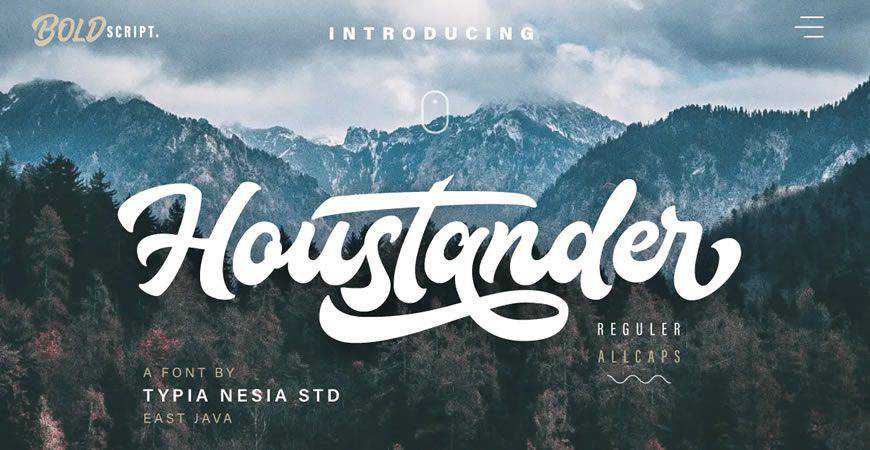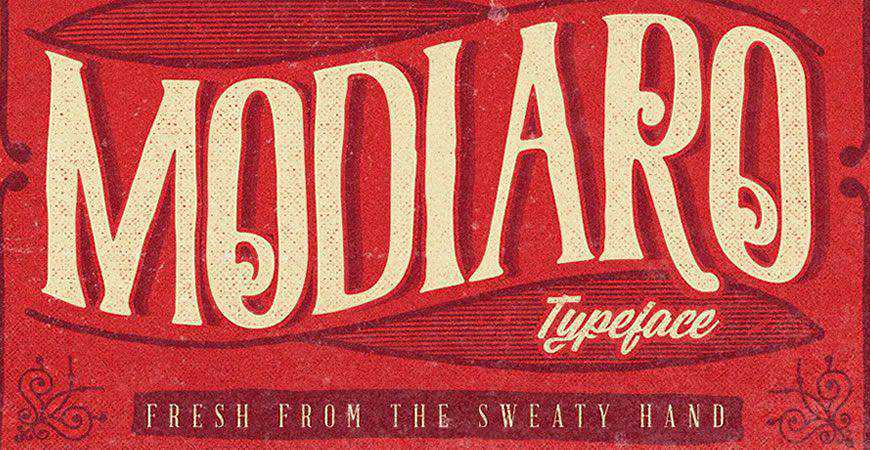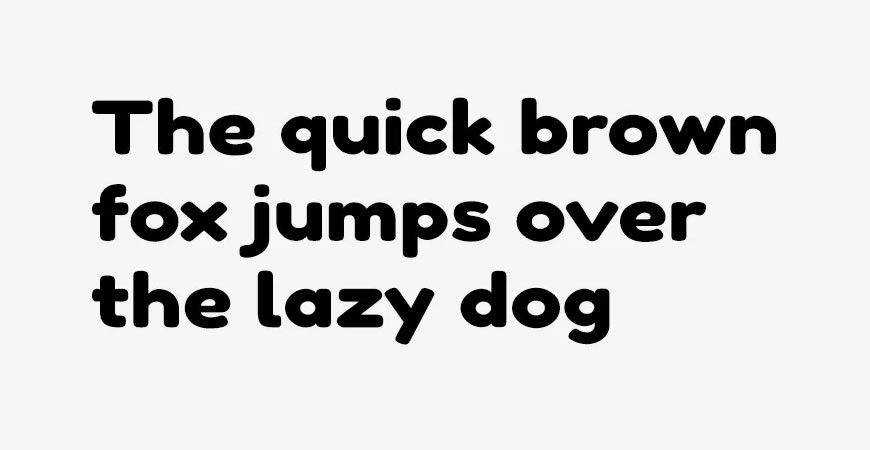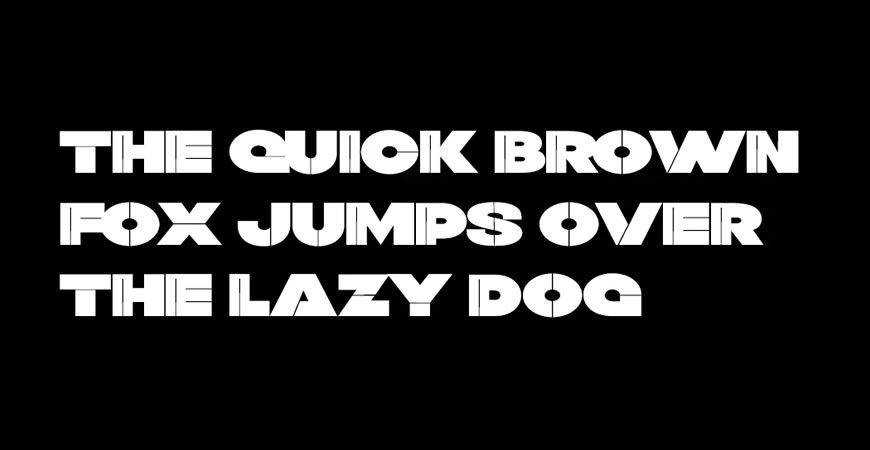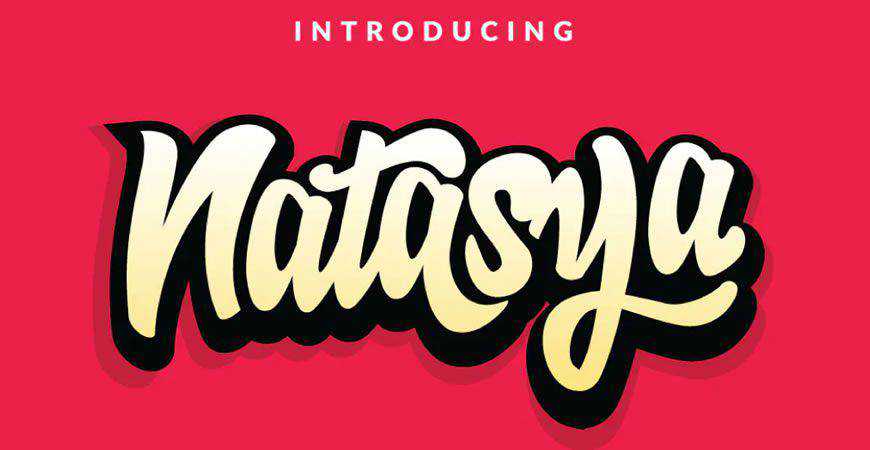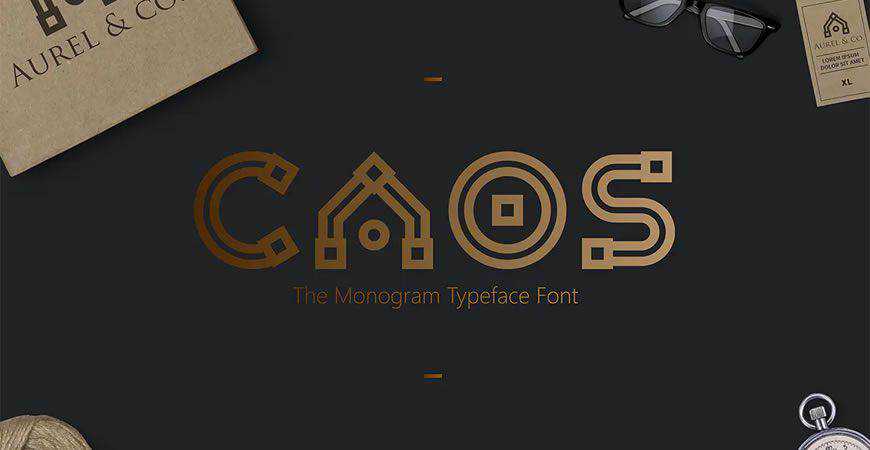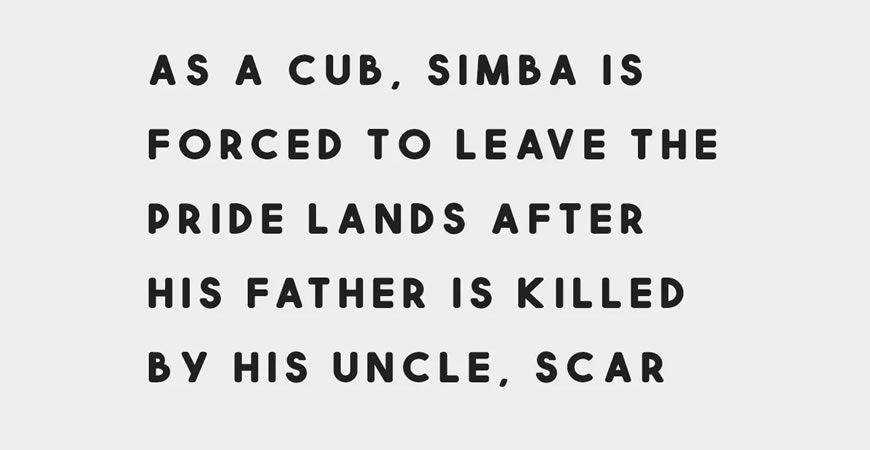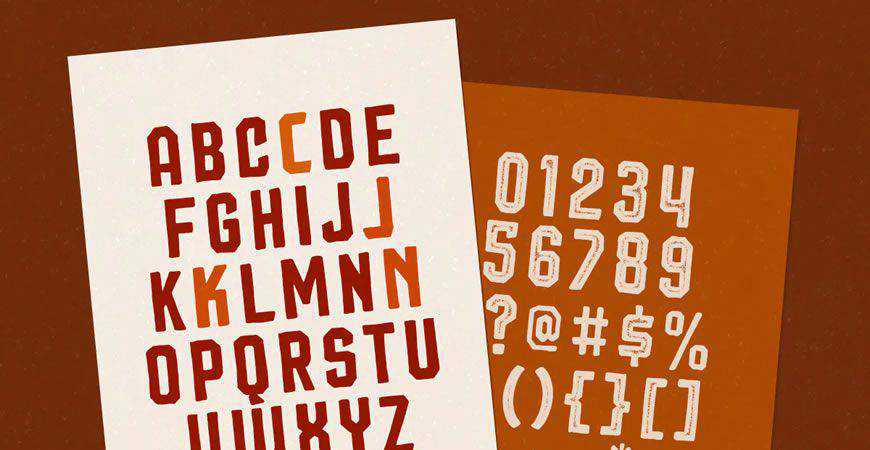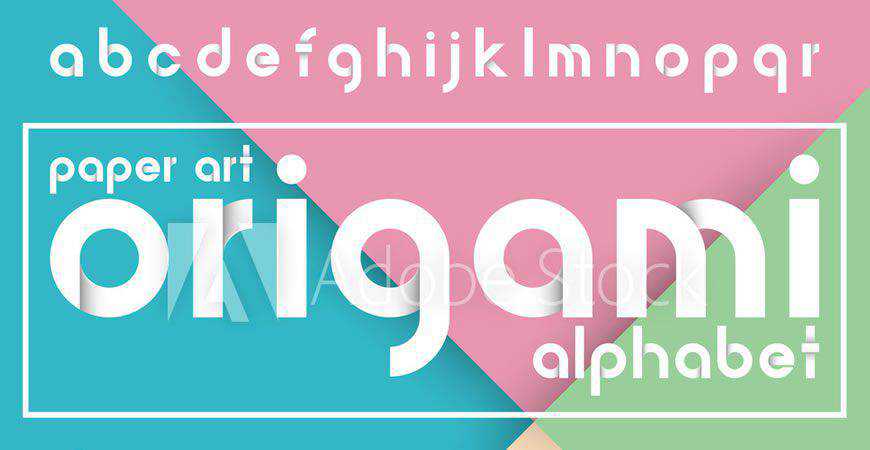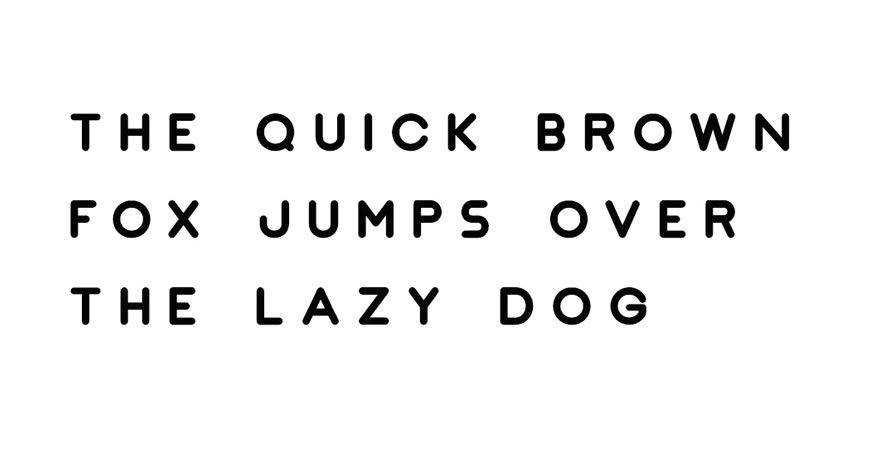
Every font tells a story. Once upon a time, serifs ruled the world. When we look at them today, we can’t shake the feelings of tradition and elegance. Then, we switched to sans-serifs, practical and highly readable. Fonts that amplify your message.
Today, we use all kinds of fonts. Serifs for elegant materials, sans-serifs for making sure our words resonate, and script fonts for that special aesthetic touch. And while the stakes are always high when it comes to fonts, they are never as high as when it comes to logo design.
If you want to create a stunning logo, you need a stunning font. So today, we’re bringing you a collection of fifty of the best fonts for creating stunning logos that will show your clients how well you understand their brands.
From tall and thin serifs that radiate elegance to flowery script fonts that stand out from the crowd, there’s plenty to pick from. Find the right font for your next project, make that logo stand out, or simply give your clients more options to choose from when creating their brand identity.
After all, if you find the right font, you won’t have to keep looking. And the font you choose will become a part of your clients’ brands as much as their products are. From logos to web display, let one of these stellar logo fonts become a go-to resource in your branding kit. Let’s dive in!
Houstander Font Duo
Good things come in pairs, and so does Houstander! Houstander is a beautiful handwritten script font with sans-serif foundations, and it works like a charm for elevating your logos and other marketing materials. It comes in 2 variations: all-caps and regular, with numerous multilingual characters and stylistic alternates.
Modiaro Vintage Branding Logo Font
There’s no cool like old-school cool! Modiaro is a vintage logo font with numerous swirls and details your clients will love. It comes with multilingual support, uppercase and lowercase variants, as well as numerals and punctuation. It’s the complete package for your next vintage logo!
Twig Display Logo Typeface
Give your logo a fun personality with Twig, a modern and quirky sans-serif logo font. It’s perfect for big displays, so you can use it for online graphics and product packaging, as well. You’ll get four distinct font styles to play with and wow your audience.
Artis Logo Typeface
Innovative and unique brands need unique fonts, and Artis is the perfect fit! This bold and beautiful sans-serif offers a retrofuturistic vibe that stands out perfectly on logos, displays, and other marketing materials. If your customers are looking for a font tailored to their brand, Artis is a great choice!
Hipster Bold Typeface for Logos
Make your brand’s style stand out with Hipster, a bold logo font. Inspired by the typography we’ve seen in the 80’s, Hipster is the perfect font for brands that want to evoke old-school cool with their materials (from logos to apparel and posters).
Natasya Hand-Lettering Logotype
For a personal touch, choose Natasy, a logo font that mimics handwriting. You can also mix and match different glyphs and stylistic alternates to fit your brand, from ligatures to swash. And in addition to fonts, you can use Natasya for posters and other marketing and branding materials, as well.
CAOS Monogram Logo Typeface
Intricate and unique, CAOS is a monogram logo font like no other! You can use CAOS as the primary font for your logo, or use the decorative alphabet letters as symbols to elevate your branding. This decorative logo font is one of a kind, so add it to your kit!
Flix Display Logo Typeface
Vibrant and modern, Flix was designed to be displayed! This decorative sans-serif font is a perfect fit for friendly brands that want to attract attention, and you’ll love how easy it is to customize. You’ll get two styles (Regular and Outline) for all your branding needs.
Squiborn Hand-Drawn Logo Font
If your brand has a message to shout from the rooftops, make sure you use Squiborn. This hand-drawn logo font is one of a kind, and it’ll give your logo a traditional and cool vibe. It’s perfect for logos and other materials like packaging and posters.
Decorative Origami Alphabet for Logos
If your brand is as intricate as origami, then you don’t have to look further from Origami – a beautifully imagined decorative alphabet font for logos. It offers a modern and friendly vibe for innovative brands, and you can mix and match to adapt it to your style.
Jaquel Minimal Display Logo Typeface
Modern, clean, and charming – Jaquel is a vivaciously fun logo font! Inspired by geometric principles and grounded in sans-serifs’ readability, Jaquel is perfect for logos for modern companies, from tech to fashion. You’ll get four different weights, as well as a web font.
Inzomniac Logotype Font
Inzomniac, a modern logo font, will transport you right onto urban city streets with all the incredible vibrancy they provide. This all-capital script font is perfect for modern brands’ logos, especially if the company’s mission is to stand out from the regular crowd.
Rossa Script Logo Font
Charming and gentle, the Rossa script is perfect for logos and big displays. Mimicking a natural yet refined handwriting flow, Rossa gives every branding material a special aura of tenderness. It’s ideal for blogging, fashion, and health and beauty businesses that want unique visuals, starting from their logo.
Elegant Alphabet Font Set
Elegant and luxurious, this logo font set depicting all the letters of the English alphabet is a perfect fit for brands that want to radiate luxury. With neatly and precisely drawn uppercase letters and numerals, you’ll have everything you need to create a refined logo for your clients.
Bismark All-Caps Logo Typeface
Bold and stunning, Bismark is an all-caps logo font that works like a charm for a variety of styles. With three weights, you will get plenty of options for adapting Bismark to your clients’ visuals. Experiment with letter spacing, and you’ll get phenomenal results for product packaging!
Rich Ganbatte Graffiti Logotype Font
Give your logos a signature style with a personal touch with a bit of help from Rich Ganbatte, a graffiti-inspired logo font. This unique and bold script font is perfect for capturing attention from the very first glance, and it comes in regular and italic all-caps variants. Ready for an adventure?
Maqin Larisa Script Logo Font
Sharp lines and bold swash come together to present you Maqin Larisa – a script logo font that will look perfect on your products! Maqin Larisa makes the most out of different influences – Gothic-inspired ligatures and modern visuals. With upper and lowercase letters, it’s the complete package!
Cber Futuristic Bold Typeface
Typography is king, and Cyber is the king of retrofuturism. It stands out with a minimalist sans-serif alphabet portrayal that reminds of sci-fi works. Every letter and numeral is unique, so it can be the main logo font, or you can cherry-pick specific letters to use them as symbols.
Southwave Handwritten Logo Font
Ready to hit the waves? Southwave, a handwritten logo font, fits modern and laid-back brands like a glove. The calligraphy style of Southwave is perfect for making customers relate to the brand from the very first glance, and you’ll love working with it during your next design project!
Toothless Brush Font
Toothless isn’t afraid to stand out from the crowd, so make sure you download it for the next time clients say: “We want to make a statement.” This urban logo font is the full package: both uppercase and lowercase letters, as well as numerals and punctuation.
Lequire Modern Sans Logo Typeface
Shoot for the moon with Lequire! This modern sans-serif logo font offers a futurist aesthetic for innovative brands. From fintech to SaaS, and even a more forward-thinking fashion brand, every business will love what this unique logo font has to offer. Every case version is unique and suits logos perfectly!
Double Line Monogram Font
Predict the future by creating it with this stunning, futuristic double-line monogram font. Perfect for subtle branding or large-scale symbolism on the logo, this logo font will give your clients the fanfare every brand deserves. Leverage the orange-golden color palette to create striking and impactful brand visuals.
Duffish Script Logo Font
Bold and fun, Duffish is the perfect combination of script fonts’ elegance and contemporary visual brand identity trends. You’ll get plenty of alternates to work with and adapt Duffish completely to your logo. Every letterform in Duffish is uniquely rendered, just like your clients’ brands!
The Beard Branded Logotype
Make a permanent mark with a marker-style logo font, the Beard. This hipsteria-style font is perfect for brands that want to make the most out of vintage-inspired typography, as well as modern and bold visual identity trends. You’ll also get stylistic alternates to adjust this powerful logo font.
Arthemis Script Logo Font
Give your logo an aura of elegance with Arthemis, a stunning script logo font for more refined brands. Every letter offers a unique handcrafted feeling, making it perfect for logos where you want every letter to stand out. You can also use it for social media, posters, stationery, and more.
Mountain Minimal Font for Logo Design
Abstract and minimalist, the Mountain logo font is perfect for modern brands that prize innovation and quality above all else. Certain letters are rendered in a unique way, so they can also be used for monogram logos. Mountain comes in all caps, with numerals included, giving you everything you need!
Matchstic Handmade Logotype Font
If you want to give your logo a bold and quirky vibe, Matchstic is precisely what the designer ordered! This unique logo font is perfect for emphasizing certain parts of your logo to stand out from the crowd. It comes with uppercase and lowercase letters, numerals, symbols, and stylistic alternates.
Funkiess Display Logotype Font
Travel back in time to the funky 70’s with Funkiess, a logo font that’s perfect for large displays. The font has a natural and vibrant look thanks to the way it mimics wild and fun-loving handwriting flow, and it’s perfect for your maximalist logos.
Claten Modern Minimal Font
If technology and futurism could be described with just a single font, it would be Claten. This modern and minimal font is perfect for tech and entertainment companies who want their logos to stand out from the crowd. It comes with both upper and lowercase variants, as well as numerals.
Fritz Rounded Display Logo Typeface
Sometimes all you need is a simple logo that highlights your message. Fritz, a rounded logo font, is the perfect choice. A sans-serif with three distinct styles, Fritz will do wonders for your minimalist logos (especially with bold color palettes) and other branding and marketing materials such as product packaging.
Aqume Abstract Font for Logo Design
Aqume is one of a kind! This abstract and modern logo font comes with a variety of unique letter renders, so it works perfectly for monogram logos and symbols, as well. Aqume is perfect for modern companies that prioritize innovation, and it will help you send out the right message.
Quick Silver Logotype Brush Font
Modern and fun, Quick Silver is a brush font perfect for modern companies’ logos. The handwriting style is very distinct, so it’ll look great on logos and other materials. You’ll get both upper and lowercase letters, numerals, and a few extra swashes and ligatures.
Vintage Decorative Font
If you’re looking to give your logo a distinct vintage style with speakeasy and the Great Gatsby vibes, look no further than this font! This gorgeous logo font comes with outlined all-caps letters and numerals, so it’s perfect as the centerpiece of your visual brand identity.
Impulse Logo Typeface
Simple and modern, with plenty of variations, the Impulse logo font is a stellar choice for your next project. Impulse comes with four different weights, which give its sans-serif nature an added flair. You’ll also get the web font version of Impulse for all your web display needs.
Troyline Font Duo & Logotype
An awesome font duo for all your vintage-inspired needs, Troyline is the whole package. You’ll get two fonts: a beautiful organic script and a sans-serif font. You can mix and match elements to your heart’s content and create stunning branding and marketing materials for your clients.
Stag Modern Display Logo Typeface
Stand out with Stag, a modern logo font that boldly states your message. This stunning all-caps sans-serif typeface is perfect for a variety of projects, and modern brands will love both the Regular and the Bold versions (each has a specific italic version). You will also get a web font!
Humanica Abstract Font for Logo Design
Humanica is an abstract and futuristic font your clients will love if they want to show how forward-thinking and modern they are, even with their logo. With distinct ligatures for all-caps alphabet letters and numerals, Humanica works perfectly as both the main logo font and monogram logo font.
Boltz Display Logo Typeface
Show everyone the quirky side of the future with Boltz, a unique logo font with plenty of stylistic alternates and groundbreaking alphabet letter renders. You’ll get six styles, including 3D regular and italic, and the unique letters will certainly make your next logo infinitely more fun and engaging.
Augor Monogram Typeface for Logos
Contemporary and minimalist, Augor is the perfect logo font, especially if you want to create a memorable monogram logo. With unique versions of all-caps letters, Augor works perfectly as the main font for your logo.
Brewisten Vintage Font
If you’re looking for a more recent vintage logo font, Brewisten is an excellent option. This sans-serif mimics the 1960-1980s typography style, giving you a unique look while evoking your tradition. It supports over 20 languages, and you’ll get a Sans and a Slant version.
Adegan Bold Font for Logos
Forward-thinking and abstract, Adegan is an incredibly unique logo font. With appropriate character spacing, it can be a great main font for your logo. However, Adegan can also work as a monogram logo font due to the interesting alphabet ligatures and glyphs that suit tech and sports brands perfectly.
Nord Minimal Display Logo Typeface
Are you looking for a modern font logo that’s not sporty, but elegant? You’ve found it! Nord is a minimalist logo typeface that radiates both elegance and simplicity. With seven diverse weights, Nord is a truly supreme addition to your branding and design kit for all your projects.
The Kingdrops Handcrafted Font for Logo Design
A vintage font duo, the Kingdrops is a top choice for your next logo design project. Kingdrops offers 50 hand-drawn objects, as well as 12 logo templates to give you a shot of inspiration. You’ll get alternates, so you can mix and match to make Kingdrops your own.
Backer Town Elegant Logotype Font
Simple and playful, Backer Town is an excellent font for all the quirky projects on your plate. It works great as the main logo font, but you can also use it for impactful monogram logos. A funky script, you’ll have the time of your life using Backer Town!
Creartive Font for Logo Design
Create art with CreARTive logo font! This little gem of a font guarantees dynamic and engaging results with all-caps alphabet letters featuring gradients and various 3D elements, as well as numerals. Creartive font works perfectly for fun logos, as well as memorable monogram logos for tech and other innovative companies.
Prodigy Handmade Logo Font
Fun and quirky, the Prodigy logo font is exactly what you’d expect an elementary school prodigy’s handwriting to look like. It’s perfect for brands that prize their childlike curiosity. This sans-serif font offers numerous options (numerals and punctuation included) for you to play with.
Futurism Minimal Logo Typeface
Sleek and beautiful, the Futurism minimal logo font is exactly what we’d like the future to look like. This incredibly unique logo font offers special versions of alphabet letters that look stunning on traditional and monogram logos and other branding and marketing materials for innovative companies.
Simbox Geometric Font for Logo Design
Create a unique logo with Simbox, a geometric logo font. Featuring traditional geometric shapes creatively integrated into alphabet letters, Simbox is wildly vibrant and leaves a long-lasting impression. It’s all caps, but you’ll get various color alternates to help you express the story of your brand.
Wild Nature Clean or Textured Font
Mimic the power of nature with Wild Nature, a stunning logo font. Depending on your style, it can work as a clean or textured font. When textured, Wild Nature truly offers a feral vibe that instantly attracts attention. And if you want something subtler, go with the standard font variation.
Adrenaline in the Blood Brush Script Font
Original and inspired by retro typography, Adrenaline in the Blood is the logo font that will get your blood racing! This gorgeous brush script is perfect for memorable logos for fun-loving brands, from fashion to breweries, restaurants, and more. All the letters are unique and vibrant, guaranteeing beautiful results!
San Marino Urban Typeface for Logo Design
Elegant and now emboldened by geometric shapes, San Marino is a perfect fit for modern brands that want to leave a great first impression. You’ll get different font styles to work with, including versions with vibrant outlines. Unlike any other sans-serif, San Marino promises both elegance and friendliness.
Have you found the right font? Our journey started with scripts. We’ve crossed the rivers of serifs, explored the wildlands of decorative fonts, only to come home to urban sans-serifs. It was quite a ride, and we hope you’ve found the right font for your next design project.
No matter the client you’re working with, we’re sure that there’s a perfect font hidden in this collection. Make sure you bookmark it so the next time you get to brainstorming, you won’t have to start from scratch or feel the pangs of a creative block. Instead, all you have to do is browse this collection, find the perfect font, and show your client the magnificent work you’ve done. You know what they say: first impressions matter. It’s time to make sure your logo shines!